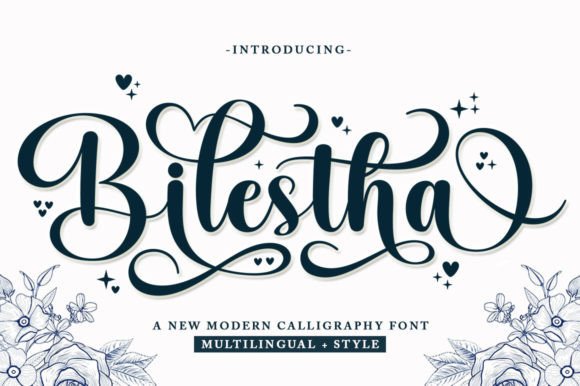
Introducing Bilestha Font - the ultimate script font designed for social media enthusiasts! Created by Reyna Studio, this font is perfect for anyone who wants to add a touch of elegance and sophistication to their online presence.
With its classic and elegant touch, Bilestha Font is the epitome of sleek and clean design. It's perfect for those who want to exude femininity, sensuality, and glamour in their work. But what makes this font stand out from the crowd is its simplicity and ease of reading - it's a font that looks great and is effortless to read.
Thanks to its many beautiful letter relationships, Bilestha Font is suitable for a wide variety of formal forms such as invitations, labels, restaurant menus, logos, fashion, makeup, stationery, novels, magazines, books, greeting/wedding cards, packaging, labels or all kinds of advertising purposes. Its versatility is unmatched, making it the perfect choice for anyone looking to elevate their design game.
But that's not all - Bilestha Font is PUA encoded, which means you can access all of the glyphs and swashes with ease! This makes it even easier to create beautiful designs that stand out from the crowd.
In conclusion, if you're looking for a font that is both stylish and functional, then look no further than Bilestha Font. Its classic and elegant touch, combined with its simplicity and ease of reading, make it the perfect choice for anyone who wants to make an impact in the world of social media. So why wait? Download Bilestha Font today and start creating stunning designs that will leave your followers in awe!